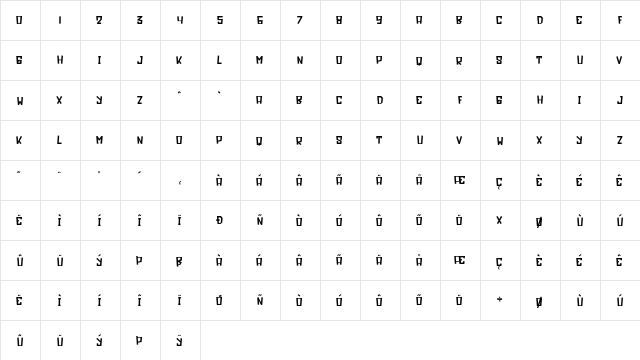
Limoline Bold
Design Context for Limoline Typeface
Limoline takes a measured approach to typography — its balanced proportions and neutral character make it a reliable workhorse for both digital and print work. The heavy weight commands attention and anchors typographic hierarchies.